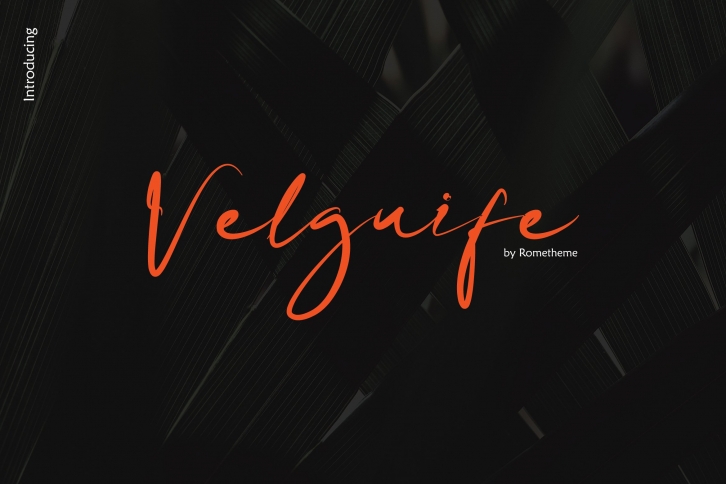
Velguife is a simple and classy handwritten font, this font looks elegant, classy, readable, stylish, catchy and easy to use.
Velguife Font is the best choice for your professional design projects, including : signature, watermark on photography, quotes, album cover, business card, logo, branding, magazines, social media, advertisements, product designs, and many other design project.
- The perfect font choice for powerful projects - watermarks, signatures, photography, logos, business cards, quotes, album covers.